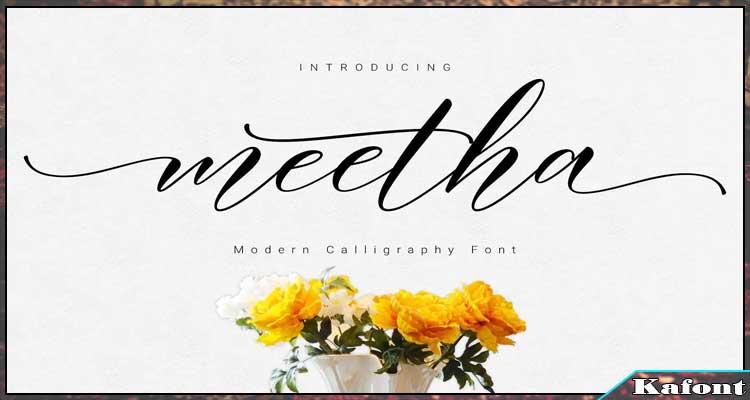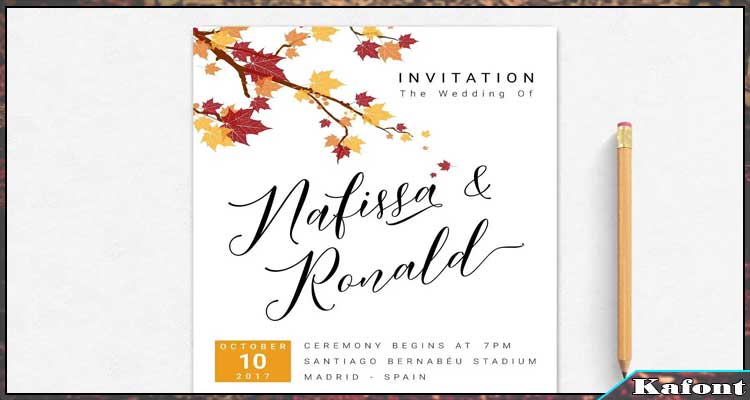
Meetha Calligraphy Script Font Free is a modern typeface suitable for present-day projects. It has an italic style with nice strokes and lines.
FadeLine is the one who made and released this font style on the Internet. The font looks quite amazing with cursive strokes and lines. Hence, it can make the texts on your designs more impressive. You can feel a modern and stylish vibe from this font as well. Because of how stylish it looks, it usually appears in some designs such as branding projects, posters, quotes, invitation cards, fashion, logos, packaging of products, and more. Or, you can put the font into any projects that you like!
Meetha Script